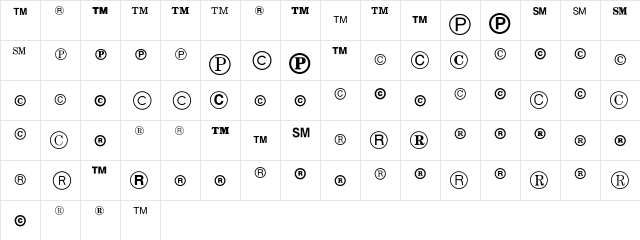
LegalTrademarks P01
Design Context for LegalTrademarks Typeface
LegalTrademarks is a composed and adaptable typeface that performs quietly and consistently across a wide range of design contexts.